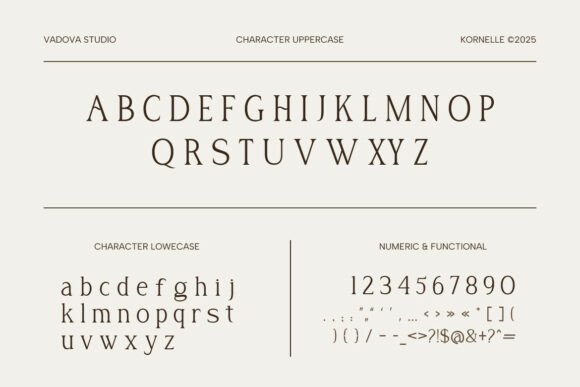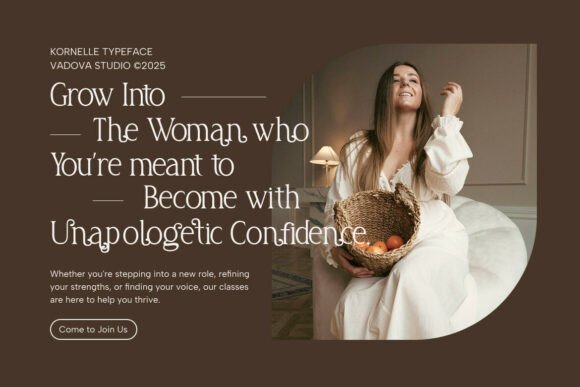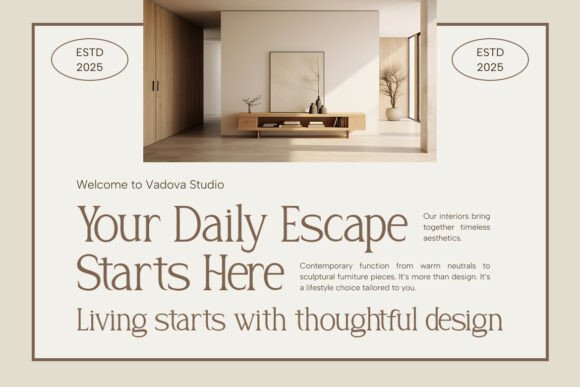
Introduction to Kornelle Font
Have you ever stumbled upon a font that sparks your creativity and transports you to a world of elegance and sophistication? For designers, this moment is like finding a treasure trove of inspiration, and it’s exactly what happens when you discover the Kornelle Font.
As a modern serif font, Kornelle Font features refined curves, artistic swashes, and a vintage-inspired personality that makes it a valuable design resource for any creative project. Its high-quality character is perfect for editorial design, wedding branding, fashion labels, and other projects that require a touch of sophistication and emotional warmth.
Key Features of Kornelle Font
- Ideal for use in logos, branding materials, and other visual identity elements, thanks to its clean and elegant aesthetic.
Honest Review: Kornelle Font
I recently stumbled upon the Kornelle Font, and I must say it’s a game-changer for any creative project. The first thing that caught my attention was the high quality of the font, which is perfect for both digital and print designs.
- ⚠️ Limited character set, which might not be suitable for complex text-based projects
- ⚠️ May require some tweaking to achieve the perfect balance of style and legibility
Overall, I’m really impressed with the Kornelle Font. It’s a fantastic design resource that can elevate your creative project to the next level. With its high quality, transparent background, and free download, it’s an absolute must-have for any designer. Give it a try and see the magic for yourself!
The Kornelle Font is a high-quality design resource ideal for creative projects requiring a unique and stylish look. With a transparent background, this font offers versatility and flexibility in various design applications.
Tips for Getting the Most Out of Kornelle Font
To maximize the effectiveness of the Kornelle Font, experiment with different font sizes, colors, and combinations. Use the font’s transparent background to create visually appealing designs and graphics.
The Kornelle Font is suitable for a variety of creative projects, including:
- Logo creation
- Typography-based art
- Marketing materials
Comparison to Kornelle Font: Great Vibes Font has a more elegant and refined feel compared to the edgy, modern look of Kornelle Font.